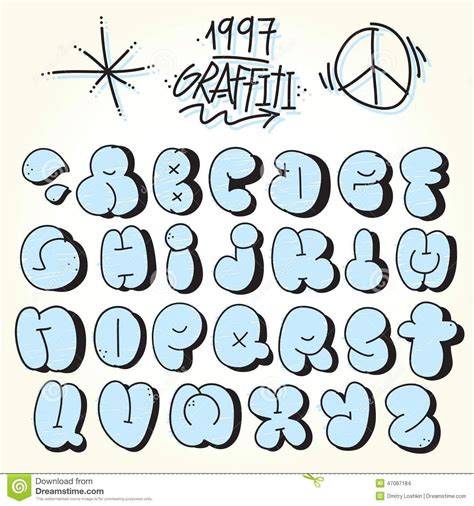
Bubble Font Style: Create Unique Text Effects
Readers, have you ever wondered how to make your text stand out and grab attention? Perhaps you've seen websites or social media posts with text shaped like bubbles, adding a whimsical and playful touch. This style is a popular trend to create unique effects and visually enhance your content. But have you ever thought, "How do they do that?" The secret lies in the realm of bubble font styles, and we're about to delve into this fascinating world. I've spent years researching and experimenting with different text effects, and I'm ready to share my knowledge with you.
What is Bubble Font Style?
Bubble font style is a unique way to display text, transforming it into a series of rounded, bubbly characters. It's often used to create a fun and playful look, reminiscent of comic books or children's illustrations. This style can be used in various applications, from website headers and logos to social media graphics and even printed materials.
Reasons Why You Should Use Bubble Font Style
Bubble font style offers a myriad of advantages, making it a popular choice for designers and content creators. It adds a touch of whimsy and playfulness to your designs, making them more appealing and memorable. It's an effective way to highlight important text and draw attention to specific elements.
Methods for Creating a Bubble Font Style
There are several methods to achieve that coveted bubbly look. Depending on your level of expertise and desired outcome, you can choose from a range of options. Let's explore some of them.
Using Online Font Generators
The most accessible and user-friendly option is to utilize online font generators. These websites offer a wide array of customizable bubble fonts, allowing you to tailor them to your preferences. You can usually adjust the size, color, and even add unique effects like shadows or gradients. The simplicity makes them ideal for beginners or quick projects.
Creating a Bubble Font Style in Photoshop
For those who have more experience with design software, Photoshop offers vast customization options. You can create your own bubble fonts using various tools, such as the Pen Tool, Shape Tools, and Layer Styles. With Photoshop, you have complete control over every aspect of your font, including the shape, texture, and even adding intricate details.
Using Illustrator to Design Your Own Bubble Fonts
If you prefer a more vector-based approach, Adobe Illustrator is an excellent platform for creating your own bubble fonts. It allows you to create precise and scalable fonts, making them ideal for various applications.
Tips for Using Bubble Font Style Effectively
While bubble font style can add a unique touch, it's essential to use it thoughtfully to avoid detracting from your design. Here are a few tips to ensure you use it effectively.
Choose the Right Font Style for Your Project
There are countless bubble font styles available, each with its own personality. Consider the tone and message of your project when selecting a font. A playful bubble font might not be suitable for a business website, but it could be perfect for a children's book cover.
Use It Sparingly
Bubble font style is visually striking, but it can be overwhelming if overused. Use it sparingly to highlight key elements and avoid making your design too busy. Try incorporating it into headlines, logos, or call-to-action buttons.
Consider Readability
While bubble font style is visually appealing, ensure it remains readable. Too much curvature or distortion can make the text difficult to decipher. Choose fonts with clear outlines and sufficient spacing between letters.
Experiment with Variations
Don't be afraid to experiment with different variations of bubble font style. You can try different colors, shadows, gradients, and even textures to create unique looks. The possibilities are almost endless!
Popular Bubble Font Styles
There are numerous bubble font styles available, each with its unique character and appeal. Here are some popular choices:
Comic Sans MS
This font is a classic example of a bubble font style. It's known for its playful and informal look, making it popular for projects targeting children or casual settings. However, it's important to note that Comic Sans can sometimes be considered overused, so use it with caution.
Chalkboard Bubbles
This font style mimics the appearance of handwritten text on a chalkboard, creating a vintage and whimsical aesthetic. It's often used for projects related to education, children, or nostalgic themes.
Cartoon Balloon Font
This font style resembles speech bubbles used in cartoons, adding a sense of playfulness and humor to your designs. It's ideal for projects targeting children or projects with a lighthearted tone.
Alternatives to Bubble Font Style
While bubble font style offers a unique look, there are other alternatives you can explore if you want to create visually appealing and memorable effects. Consider some of these alternatives:
Bubble font style is a versatile and fun way to add a unique touch to your designs. Whether you're creating a website, social media graphics, or printed materials, this style can help you make a visual impact and enhance the overall appeal of your content. So, experiment with different bubble font styles, explore the various methods for creating them, and discover the boundless possibilities of this playful and engaging text effect.